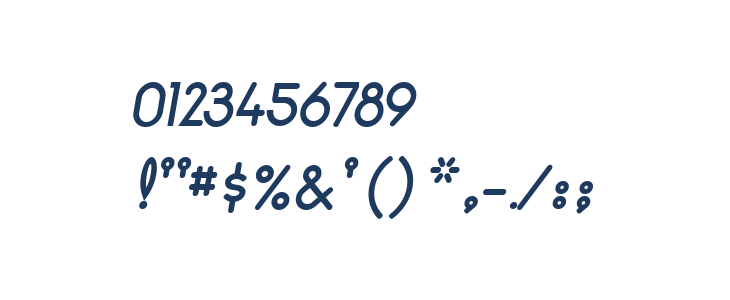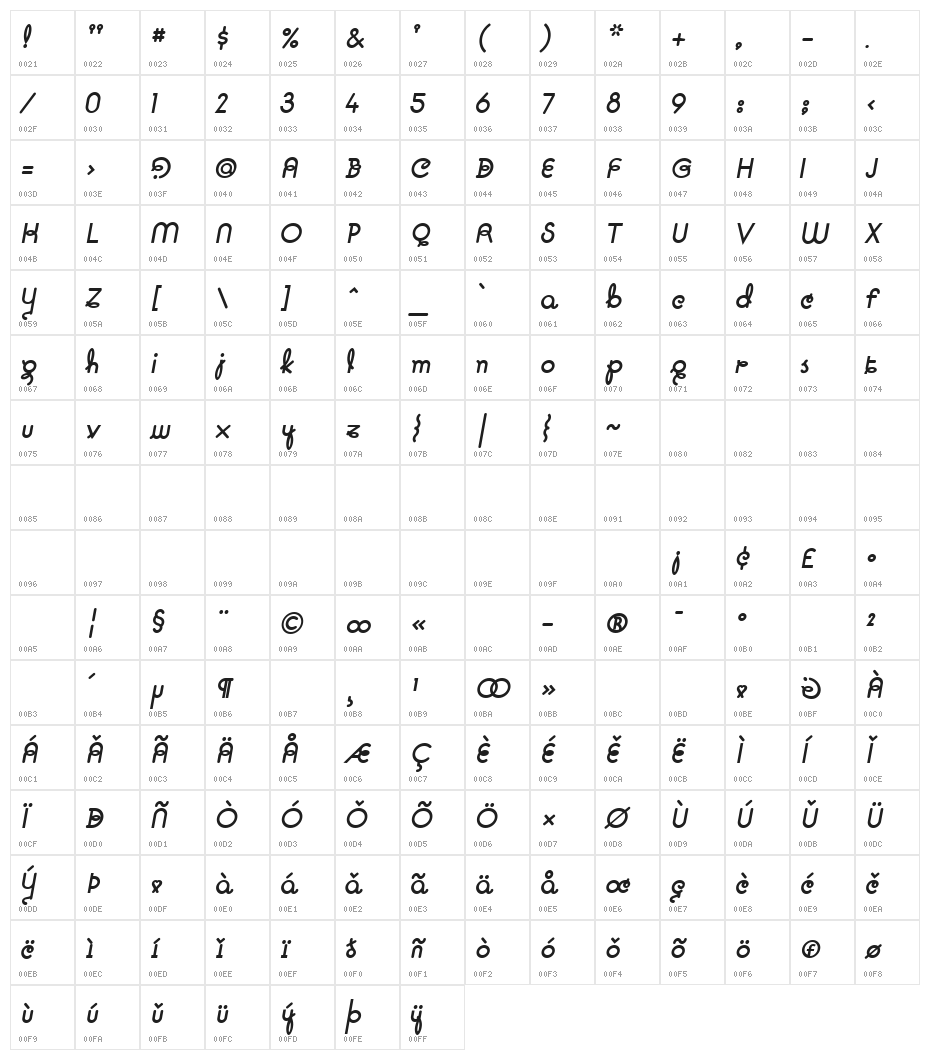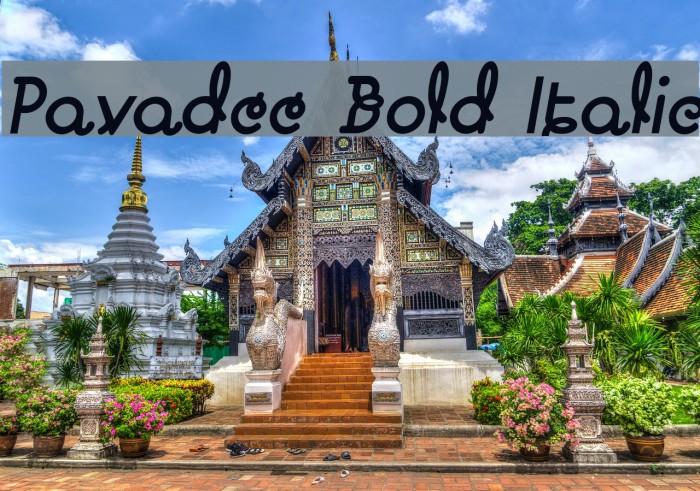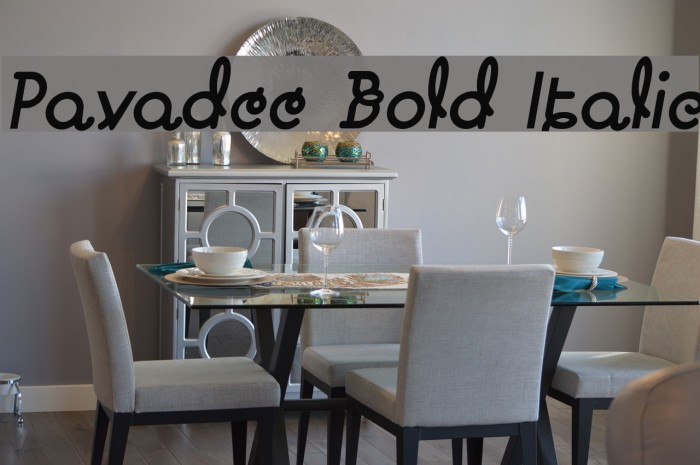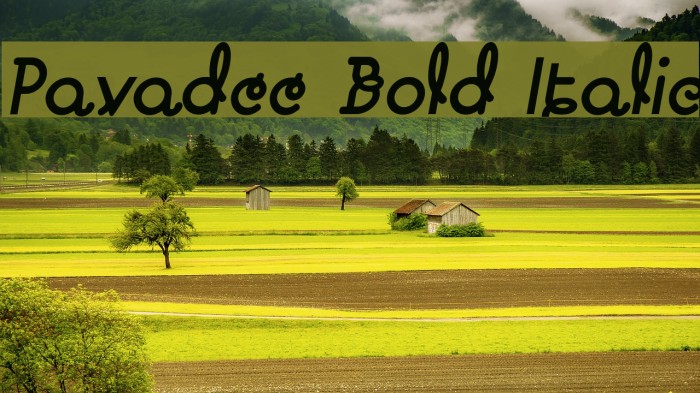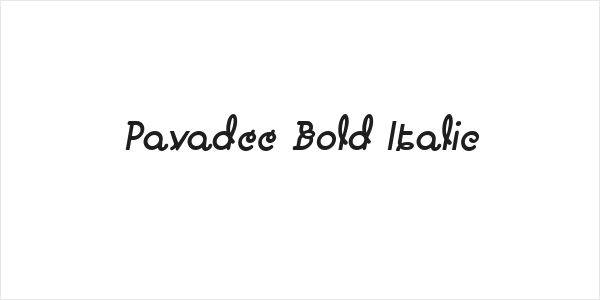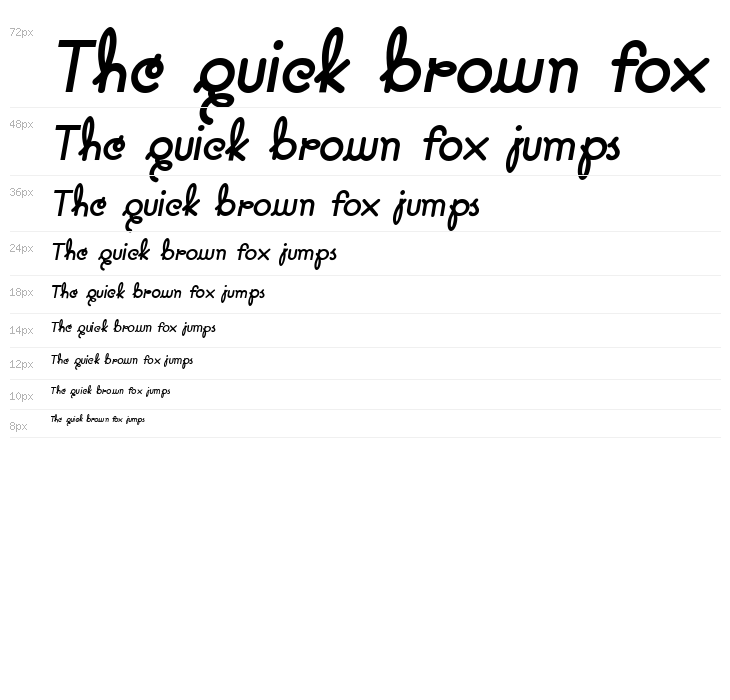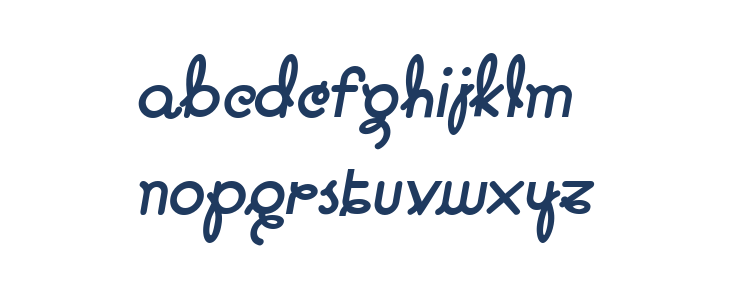
Pavadee Bold Italic Font
Pavadee Bold Italic Description
This font features a playful and dynamic style with a bold and italicized appearance. The characters are rounded and have a flowing, cursive-like quality that adds a sense of movement and energy. The uppercase letters are slightly larger and more pronounced, while the lowercase letters maintain a consistent flow. Numbers and special characters are designed to match the overall aesthetic, ensuring a cohesive look. The font's unique style makes it suitable for creative and informal applications, where a touch of personality is desired.
| Overall Style | Playful, Creative |
| Proposed Projects | Ideal for creative projects such as greeting cards, playful branding, children's books, and artistic posters. |